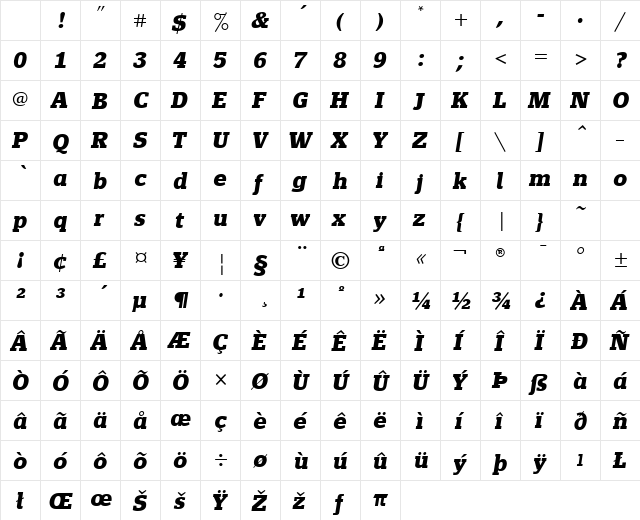
Complete Siseriff LT Std BoldItalic Regular glyph index. Displaying only characters natively supported by Siseriff LT Std BoldItalic Regular font.
Siseriff LT Std BoldItalic carries the refined structure of traditional serif typography, with bracketed terminals and considered proportions that communicate credibility and craft. The slanted form adds forward momentum and visual energy. Its bold stroke weight gives it real presence on the page.